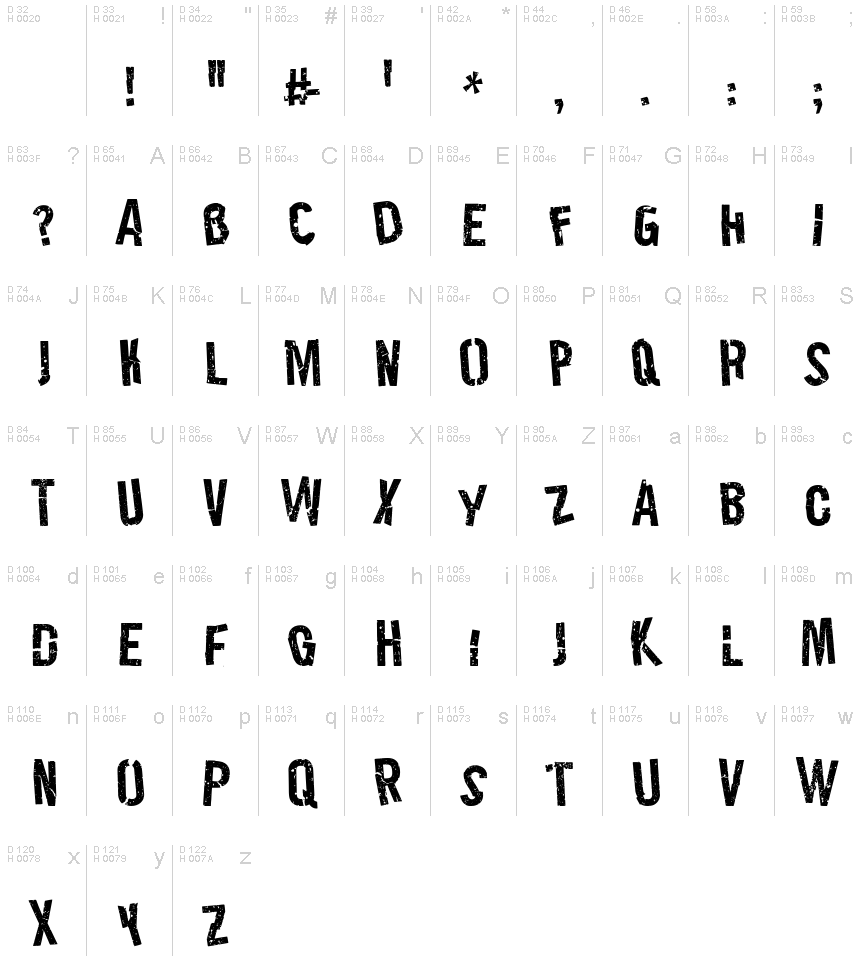
LeatherJackets
Leather Jackets by Max Infeld - Xerographer Fonts is a captivating display font that commands attention. Its distorted, gritty aesthetic evokes a sense of edginess and rebelliousness, making it a standout choice for projects seeking a bold, unapologetic vibe. The font's distinct letterforms, with their rough, jagged edges, create a raw, untamed impression that is both visually striking and emotionally impactful.
Leather Jackets' versatility allows it to shine in a variety of design contexts, from hard-hitting album covers to gritty urban branding. Its strong, uncompromising personality lends itself well to projects that aim to convey a sense of rebellion, danger, or raw power. Whether used for headlines, logos, or eye-catching display text, this font has the ability to captivate and command the viewer's attention, making it a valuable asset for designers seeking to make a bold, lasting impression.